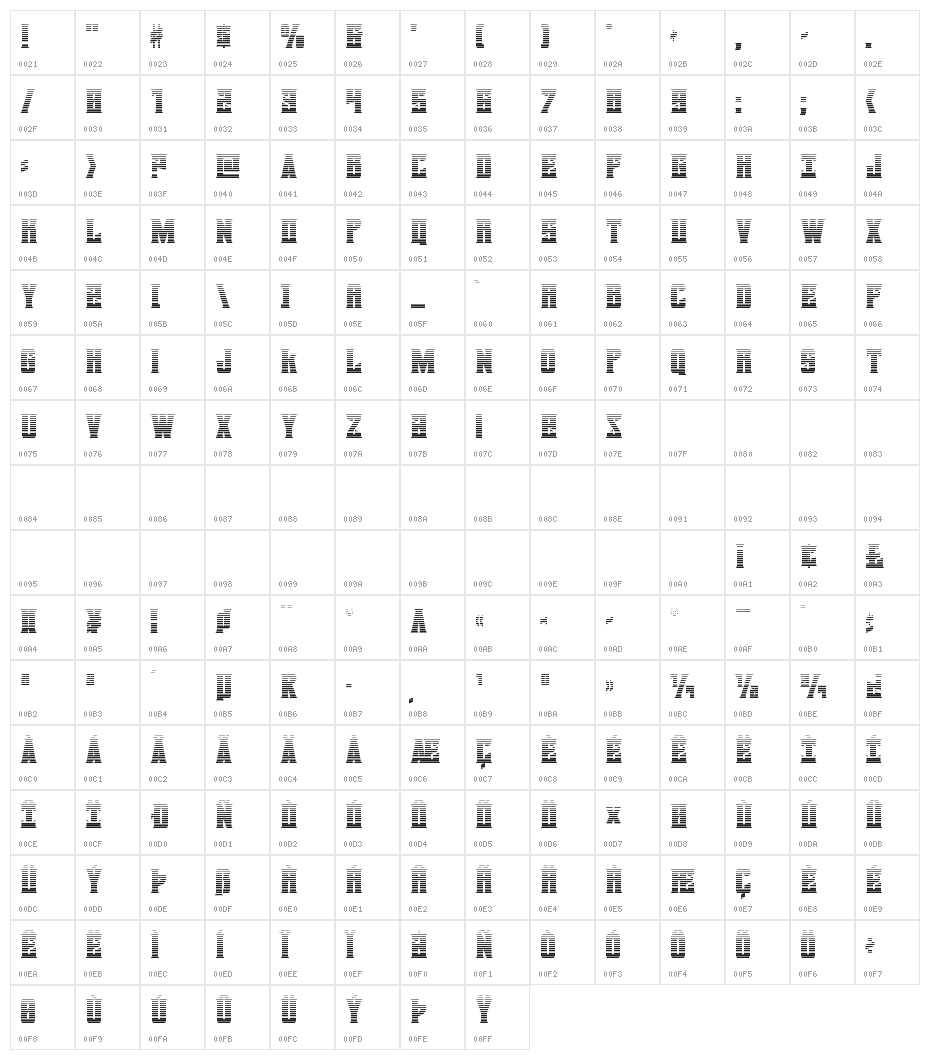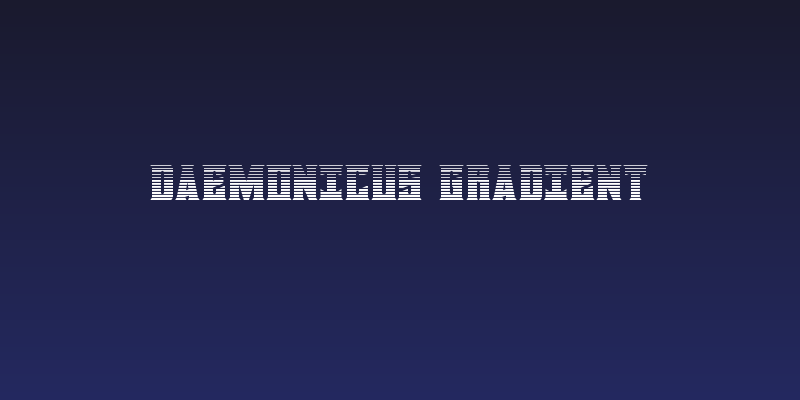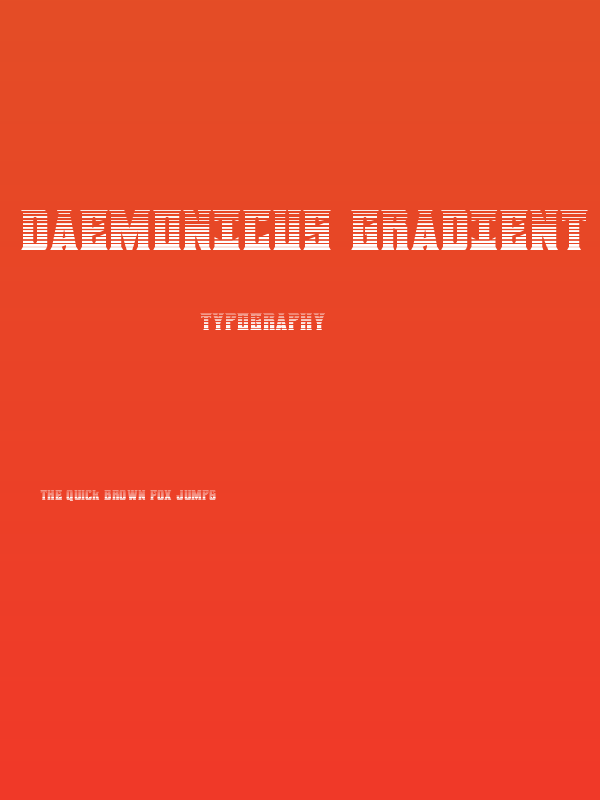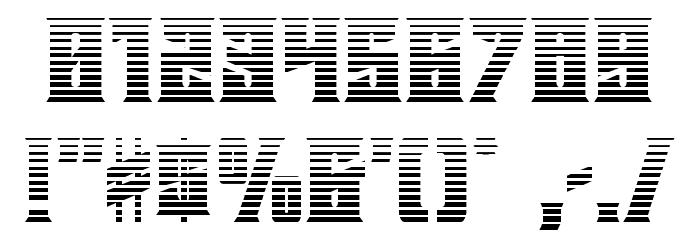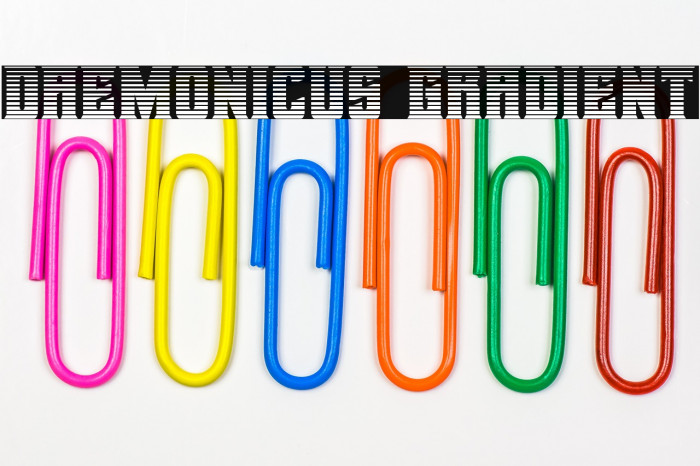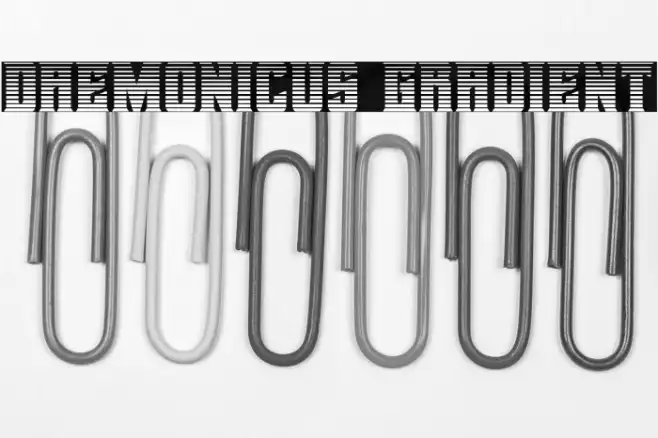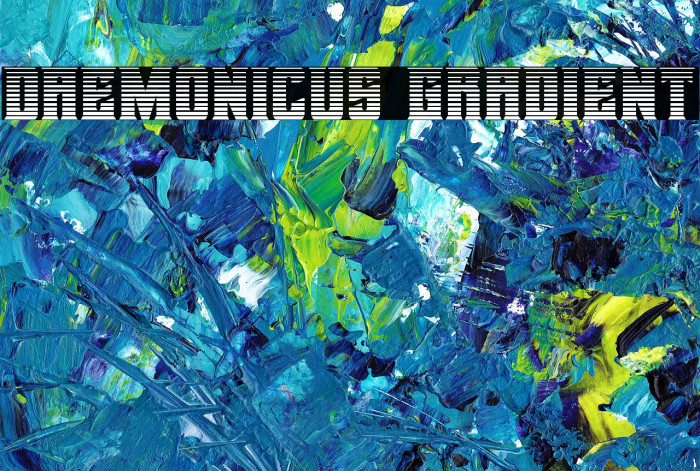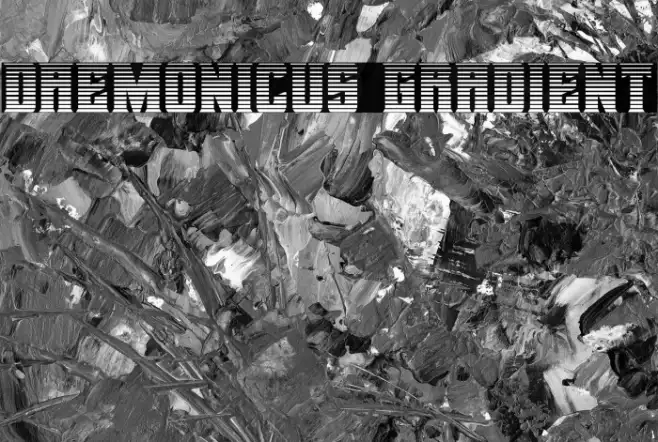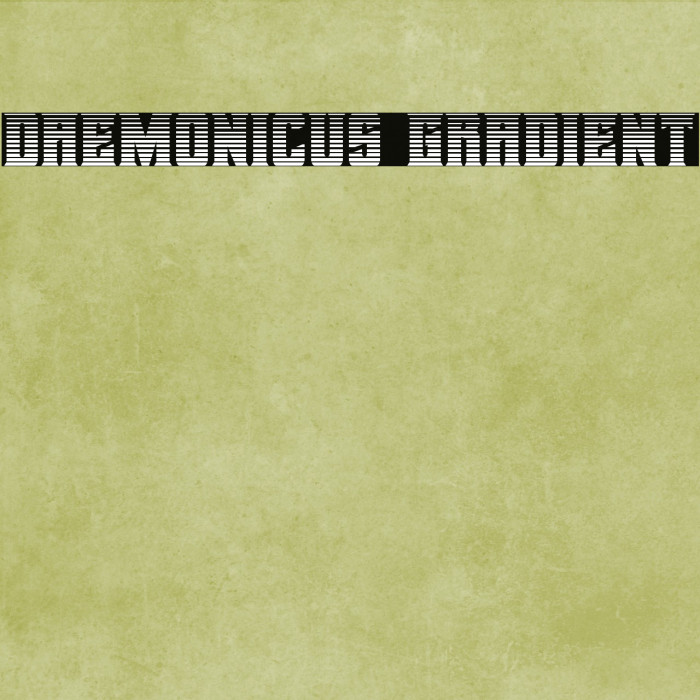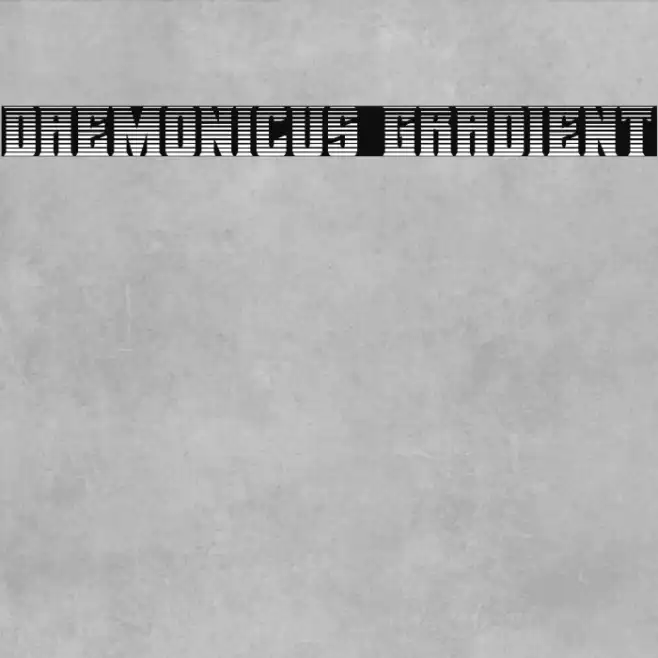
Daemonicus Gradient Font
Daemonicus Gradient Description
This font features a bold, decorative style with a unique gradient effect created by horizontal lines that vary in thickness. The uppercase and lowercase letters maintain a consistent width, giving the font a monospaced appearance. The characters are designed with sharp, angular edges, adding a modern and edgy feel. The numbers and special characters follow the same design principles, ensuring uniformity across the font. The gradient effect gives the font a dynamic and eye-catching look, making it suitable for projects that require a strong visual impact.
| Proposed Projects | Ideal for posters, logos, headlines, and any design needing a striking, modern aesthetic. |